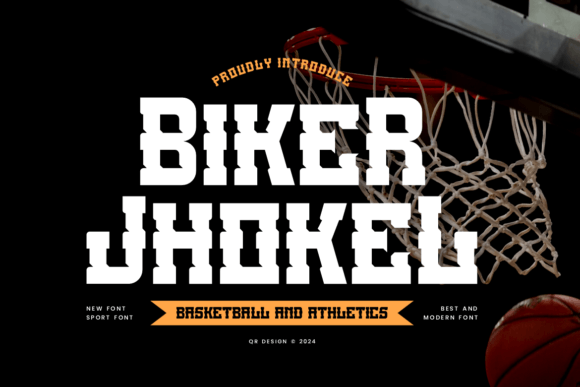
The Ultimate Biker Jhokel Font Review: A Bold and Authentic Display Font
I’ll never forget the design project that led me to discover the Biker Jhokel Font. I was working on a branding project for a sports apparel company, and I was struggling to find the perfect font to capture the edgy, adventurous vibe of the brand. That’s when I stumbled upon Biker Jhokel Font, and it instantly became my go-to choice. In this article, I’ll share my experience with this bold and authentic display font, and explore its features, uses, and alternatives.
Honest Review: What I Love and What I Don’t
• Bold and eye-catching: Biker Jhokel Font is perfect for making a statement. Its bold and authentic design grabs attention and adds a touch of rebelliousness to any project.
• Versatile: This font is suitable for a wide range of contexts, from logos and sports branding to posters and social media graphics.
• Easy to read: Despite its bold design, Biker Jhokel Font is surprisingly easy to read, even at smaller sizes.
• Unique character: The font has a distinct personality that sets it apart from other bold fonts.
The Not-So-Good: ⚠️
• Limited use cases for body text: While Biker Jhokel Font is amazing for headlines and titles, it’s not the best choice for body text due to its bold design.
• No built-in italic version: Unfortunately, Biker Jhokel Font doesn’t come with an italic version, which might limit its use in certain design scenarios.
• May not be suitable for formal projects: The font’s bold and edgy design might not be suitable for formal or professional projects that require a more traditional look.
Biker Jhokel Font comes with a range of OpenType features and glyphs that can enhance your design. Here are a few examples:
• Stylistic alternates: The font offers stylistic alternates that can add a touch of personality to your design.
• Glyphs: The font includes a range of glyphs that can be used to add visual interest to your design.
The Designer Inspiration Behind Biker Jhokel Font
The story behind Biker Jhokel Font is one of creativity and experimentation. The font was designed by a team of typographers who wanted to create a bold and authentic display font that would capture the spirit of rebellion and adventure. Inspired by the world of motorcycles and extreme sports, Biker Jhokel Font is the perfect choice for designers who want to add a touch of edginess to their projects.